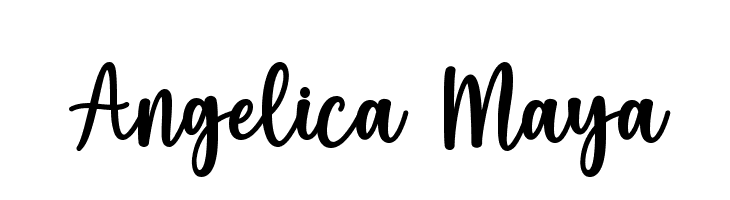
Elegant script font with flowing, cursive strokes and graceful loops.
A playful, casual handwritten font with tall, narrow letters.
An elegant, italic script font with ornate flourishes and a hand-drawn feel.
A playful, handwritten script font with dynamic, flowing characters.